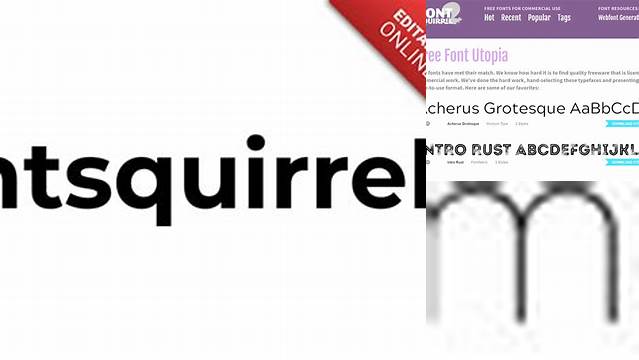
Font Squirrel & Montserrat: A Font Lover's Guide
Introduction to Font Squirrel and Font Selection
Hey there, design enthusiasts! Ever wondered how to make your website or project visually stunning and user-friendly? Well, a massive part of that comes down to your font choices. And when it comes to free, high-quality fonts, Font Squirrel is a name you need to know. In this article, we'll dive deep into the world of fonts, exploring the incredible resources Font Squirrel offers, and focusing on the ever-popular Montserrat font. We'll also cover font optimization techniques to ensure your website looks great and loads fast. Sounds good, right? Let's get started!
So, what exactly is Font Squirrel? Think of it as a treasure trove for font lovers. It's a website dedicated to providing free, commercially licensed fonts for your design projects. This means you can use these fonts on your website, in your marketing materials, or even for personal projects without worrying about licensing fees. It's a win-win! The platform carefully curates its collection, ensuring that the fonts are of high quality and well-suited for various design needs. It's a fantastic place to discover new fonts and expand your creative palette. Now, font selection is more than just picking a pretty face; it's about finding a font that aligns with your brand's personality and the overall message you want to convey. For example, a sleek, modern font might be perfect for a tech company, while a more playful font might be better suited for a children's brand. The fonts you choose can significantly impact how your audience perceives your work, so taking the time to find the right ones is crucial. Furthermore, consider the font's readability and legibility, especially if your website has a lot of text content. You want your visitors to enjoy reading what you have to say, and that means choosing fonts that are easy on the eyes. Some fonts are better suited for headings, while others are more appropriate for body text. Mixing and matching fonts is a common and effective technique, but it's important to ensure they complement each other. Lastly, accessibility is key, so make sure your fonts are accessible to everyone, including those with visual impairments. In other words, careful font selection can make or break your projects.
Deep Dive into Montserrat Font
Alright, let's talk about one of the most popular fonts out there: Montserrat. This font, inspired by the architecture of the Montserrat neighborhood in Buenos Aires, has taken the design world by storm, and for good reason! It's a versatile, geometric sans-serif font that's both clean and modern. Montserrat comes in various weights and styles, making it incredibly flexible for different design applications. Whether you need a bold header or delicate body text, this font has you covered. The font is designed with a strong emphasis on readability, making it perfect for both large and small text sizes. This is a crucial aspect of user experience, as easy-to-read text keeps visitors engaged and makes it easier for them to consume your content. Montserrat's clean lines and open letterforms give it a contemporary feel that works well with a wide range of design styles. From minimalist websites to vibrant marketing materials, it easily adapts to different aesthetic preferences. The different weights available allow designers to create visual hierarchy, guiding the reader's eye and making the content more organized. Montserrat also offers good legibility on screens, which is essential in today's digital-first world. Screen resolution and pixel density play a significant role in how a font appears, so selecting a font that renders well on various devices is paramount. With Montserrat, you get that flexibility, allowing you to use it across various devices and screen sizes. Furthermore, it supports multiple languages, making it a great choice for multilingual projects. In addition to all the practical advantages, Montserrat has an undeniable aesthetic appeal. Its geometric forms give it a modern edge, while its versatility makes it a safe yet effective choice. The font is freely available for both commercial and personal use, making it an accessible choice for designers and businesses. Whether you're creating a website, a logo, or marketing materials, Montserrat can significantly enhance the overall visual impact of your project.
Conclusion: Elevate Your Design with Font Squirrel
So, there you have it! Font Squirrel, Montserrat, and font optimization: a winning combination for any design project. By leveraging the incredible resources Font Squirrel provides, you can access a vast library of high-quality, free fonts. And, by mastering the art of font selection, you can ensure your designs are both visually appealing and user-friendly. Montserrat, with its versatility and readability, is an excellent example of how a well-chosen font can elevate your brand and enhance the user experience. Furthermore, by implementing effective font optimization techniques, you can ensure your website loads quickly, keeping your visitors engaged and happy. So go out there, explore the world of fonts, and create something amazing! With Font Squirrel and a bit of design savvy, the possibilities are endless. Remember to prioritize readability, select fonts that align with your brand, and always optimize for web performance. Happy designing, guys! I hope you found this guide helpful! Now go forth and create some awesome projects! Remember, fonts are a crucial aspect of design, so take the time to choose wisely, and you'll be well on your way to creating stunning and effective designs. Best of luck, and happy designing!